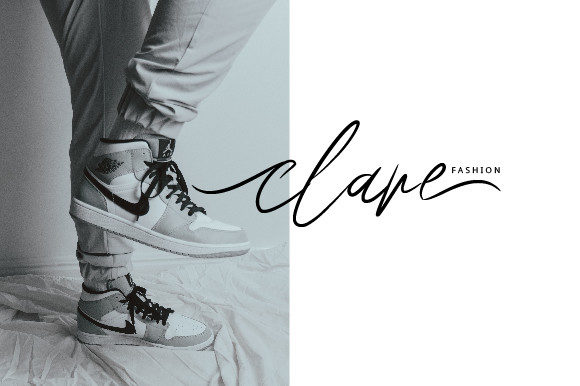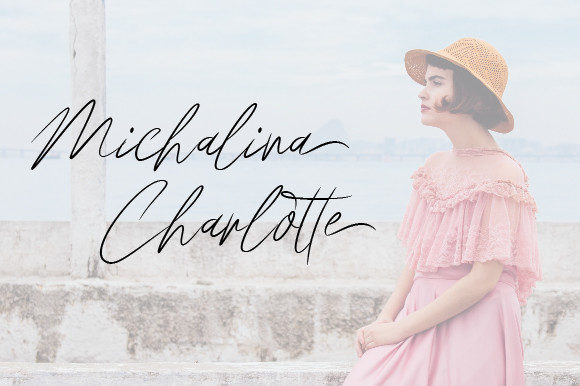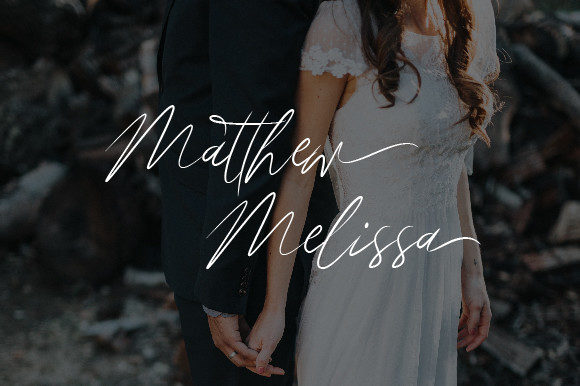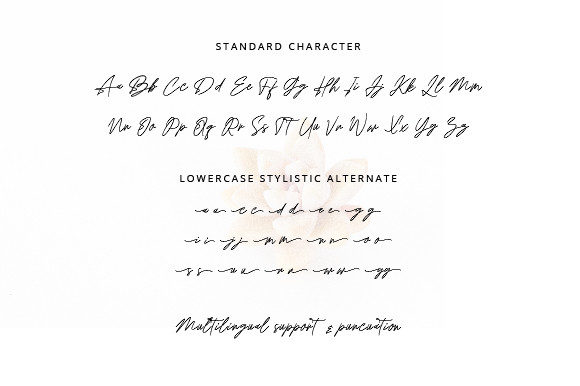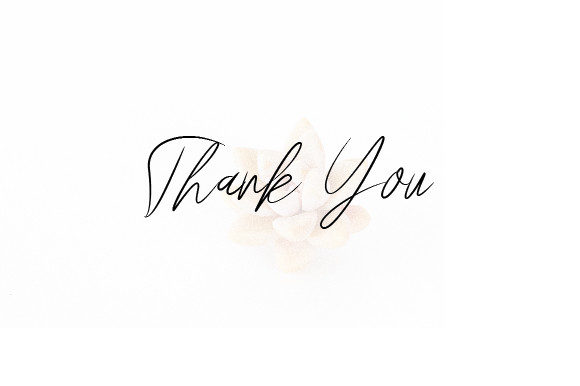
Introducing Anthonio Bradley Font: Elevate Your Designs with Elegance and Sophistication
In the world of typography, a well-crafted font can make all the difference in elevating your designs from ordinary to extraordinary. If you’re a designer, craftsperson, or simply a creative enthusiast, you’re likely always on the lookout for the perfect font to bring your vision to life. That’s where Anthonio Bradley Font comes in – a stunning, thin, and refined script font that’s poised to revolutionize your design projects.
The Essence of Anthonio Bradley Font
Anthonio Bradley Font is a masterclass in elegance and sophistication. Its slender lines and refined curves exude a sense of luxury and poise, making it an ideal choice for designs that demand a touch of class. Whether you’re working on a logo, branding materials, invitations, stationery, wedding designs, or social media posts, this versatile font is sure to impress.
Key Features of Anthonio Bradley Font
- Classy and Elegant: Anthonio Bradley Font boasts a sophisticated aesthetic that’s perfect for high-end designs, fashion brands, and luxury products.
- Modern Look: Despite its classic feel, this font has a distinctly modern edge that will keep your designs looking fresh and contemporary.
- Versatile: From logos and branding to invitations and social media posts, Anthonio Bradley Font is the ultimate multi-tasker.
- Easy to Read: With its clear, flowing script, this font is surprisingly easy to read, even at smaller sizes.
Anthonio Bradley Font is a dream come true for designers and crafters who value precision, elegance, and versatility. Whether you’re creating:
- Logos and Branding: Make a lasting impression with a custom logo that exudes sophistication and style.
- Invitations and Stationery: Add a touch of luxury to your wedding invitations, greeting cards, and other paper crafts.
- Wedding Designs: Create stunning wedding decor, signage, and stationery that reflects the elegance of the big day.
- Social Media Posts: Elevate your online presence with eye-catching social media graphics that showcase your brand’s personality.
Why Choose Anthonio Bradley Font?
In a sea of fonts, Anthonio Bradley stands out for its unique blend of classic elegance and modern flair. Here are just a few reasons why designers and crafters are falling in love with this incredible font:
- Unique and Exclusive: Stand out from the crowd with a font that’s sure to make your designs shine.
- High-Quality: Anthonio Bradley Font is crafted with precision and attention to detail, ensuring a flawless design experience.